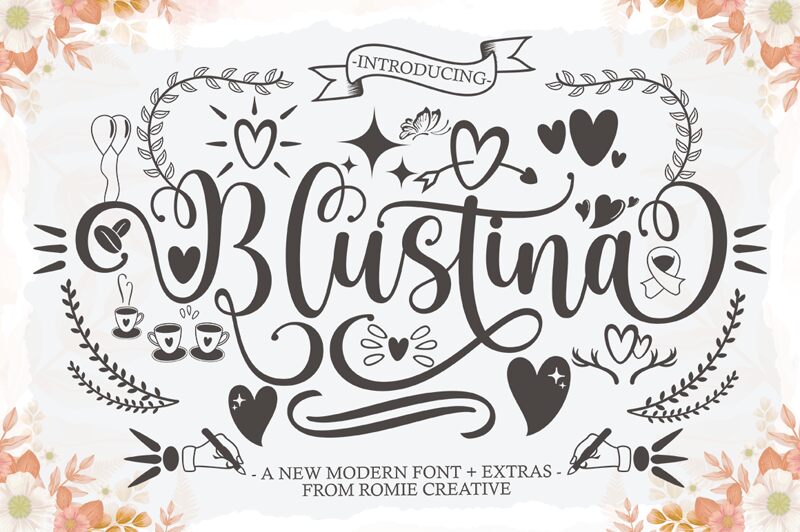
Introducing Blustina, a modern calligraphy font designed by Romi Rahmadi. Perfect for adding a sophisticated and stylish touch to your projects, Blustina is perfect for logos, event invitations, wedding stationery, branding designs and more!
Blustina